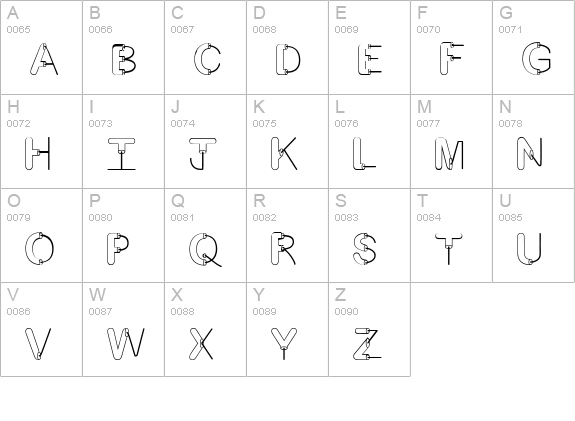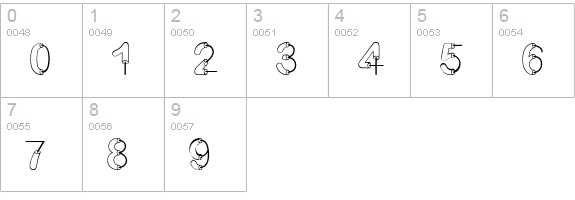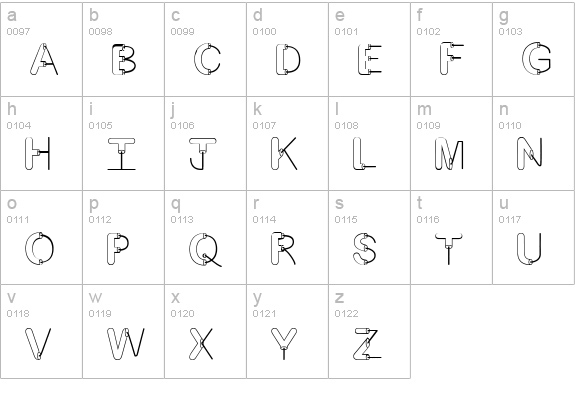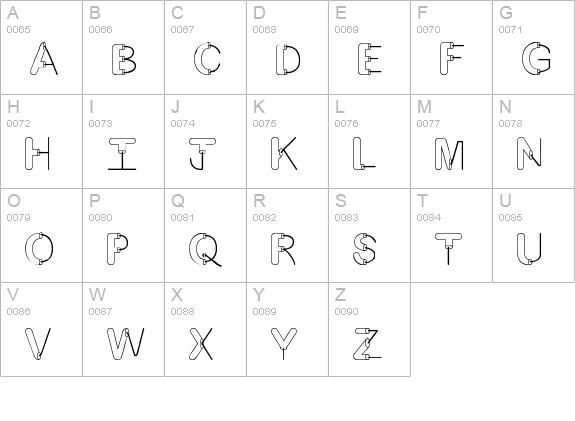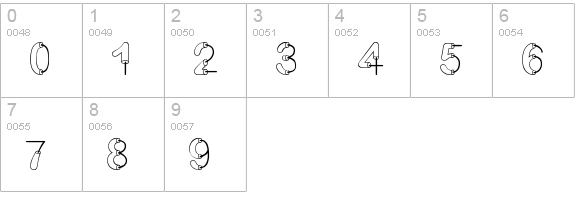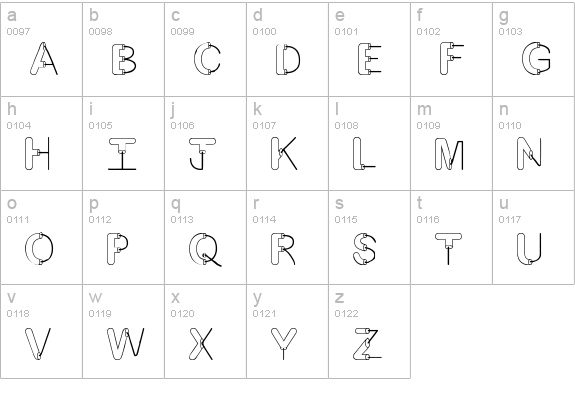
Artsy Fartsy Font Details
Introducing Artsy Fartsy font, a whimsical and playful typeface that will add a creative touch to your designs. With its quirky and artistic style, Artsy Fartsy font is perfect for projects that call for a unique and unconventional look. This font is bursting with personality and character, making it ideal for anything from greeting cards to posters to logos. And the best part? Artsy Fartsy font is available for free download at FontsMarket.com! That's right, you can get your hands on this one-of-a-kind font without spending a dime. So why wait? Add a splash of creativity to your next project with Artsy Fartsy font today!